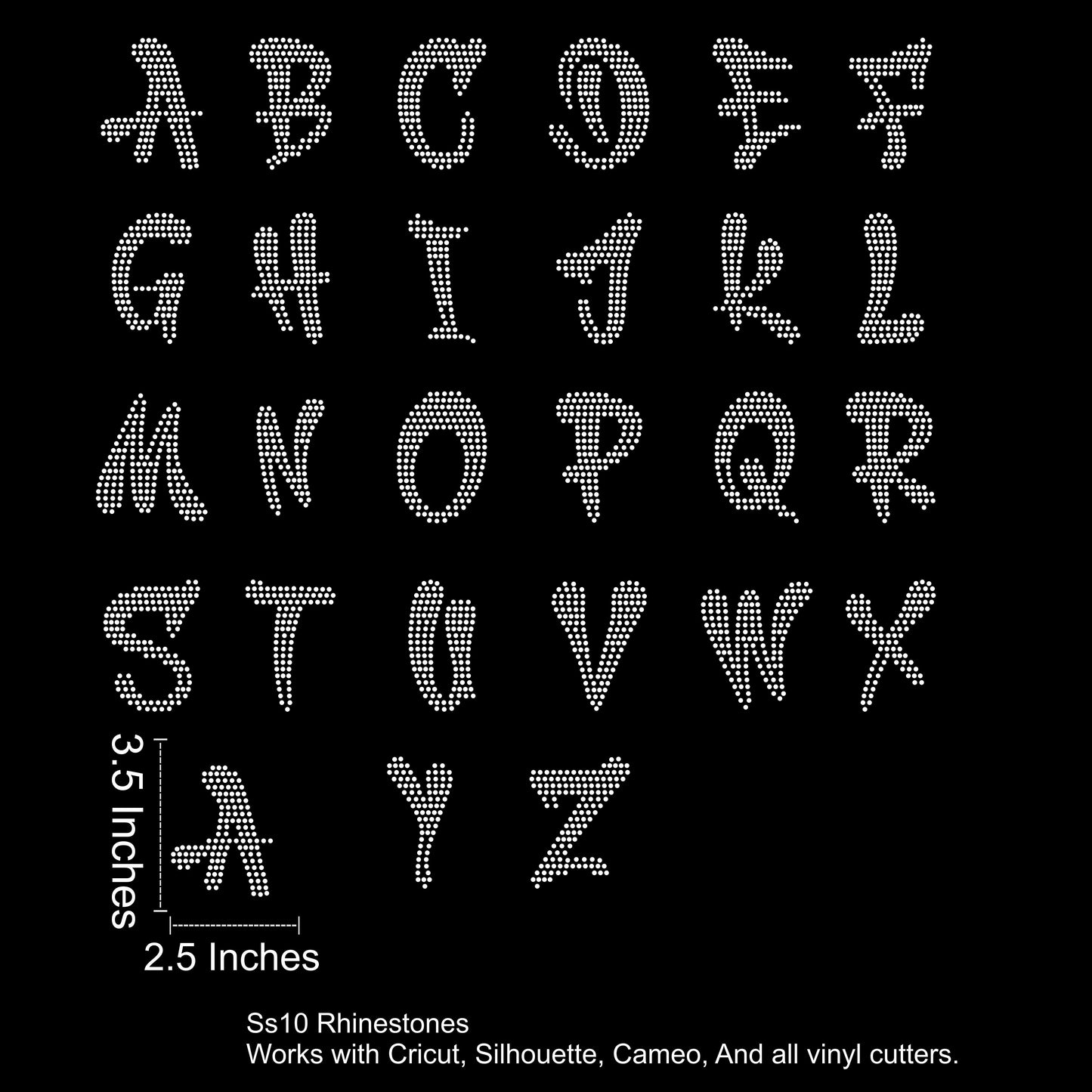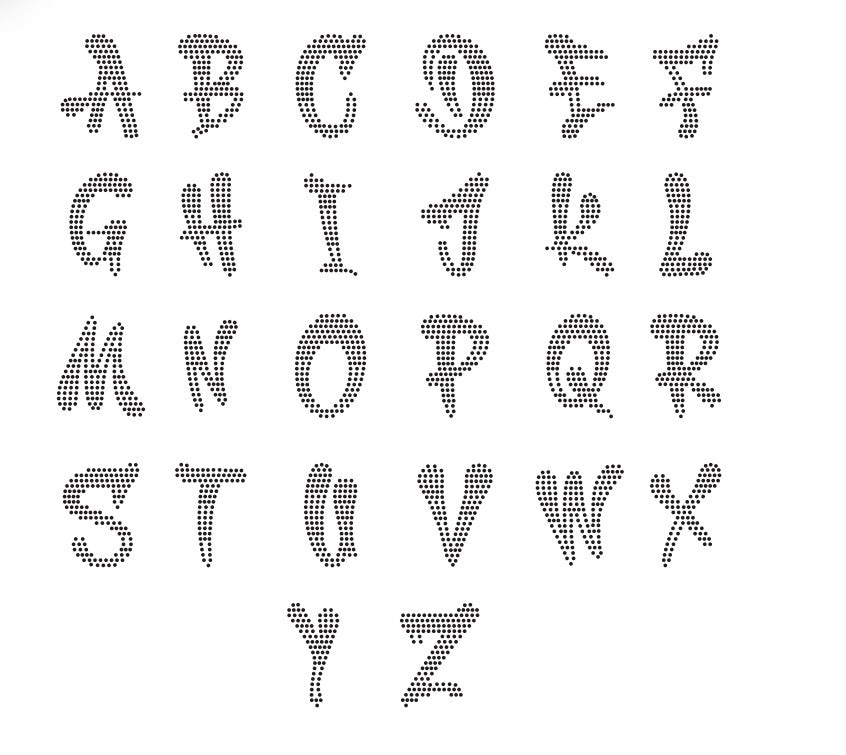
Wild Trace Font Rhinestone SVG File 3.5 Inches Tall
Wild Trace – Rhinestone Font SVG (SS10 Size Compatible)
Add a hand-drawn edge to your rhinestone designs with Wild Trace, a bold, sketch-style font built specifically for SS10 stones. This 3.5-inch-tall alphabet delivers a custom, handmade feel while staying clean and cutter-ready.
• Letters A–Z
• Approx. 3.5 inches tall
• Perfectly spaced for SS10 rhinestones